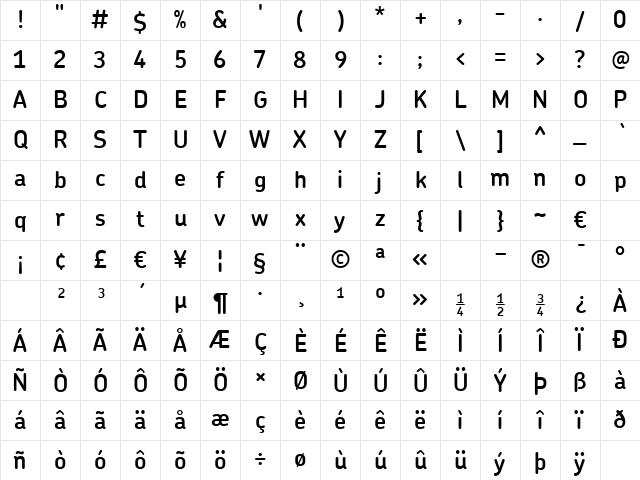
ChevinDemiBold Regular Free Font
ChevinDemiBold Regular
Design Context for ChevinDemiBold
ChevinDemiBold is a composed and adaptable typeface that performs quietly and consistently across a wide range of design contexts. Its bold stroke weight gives it real presence on the page.